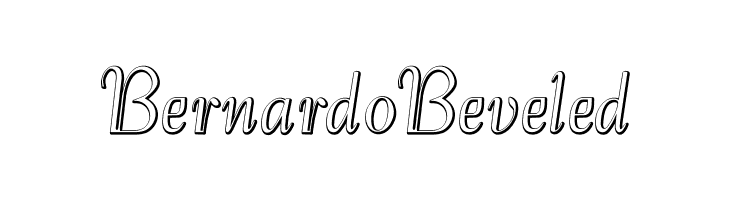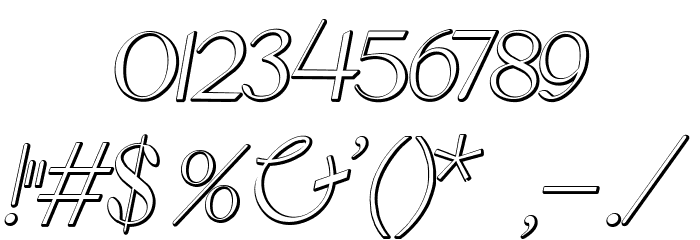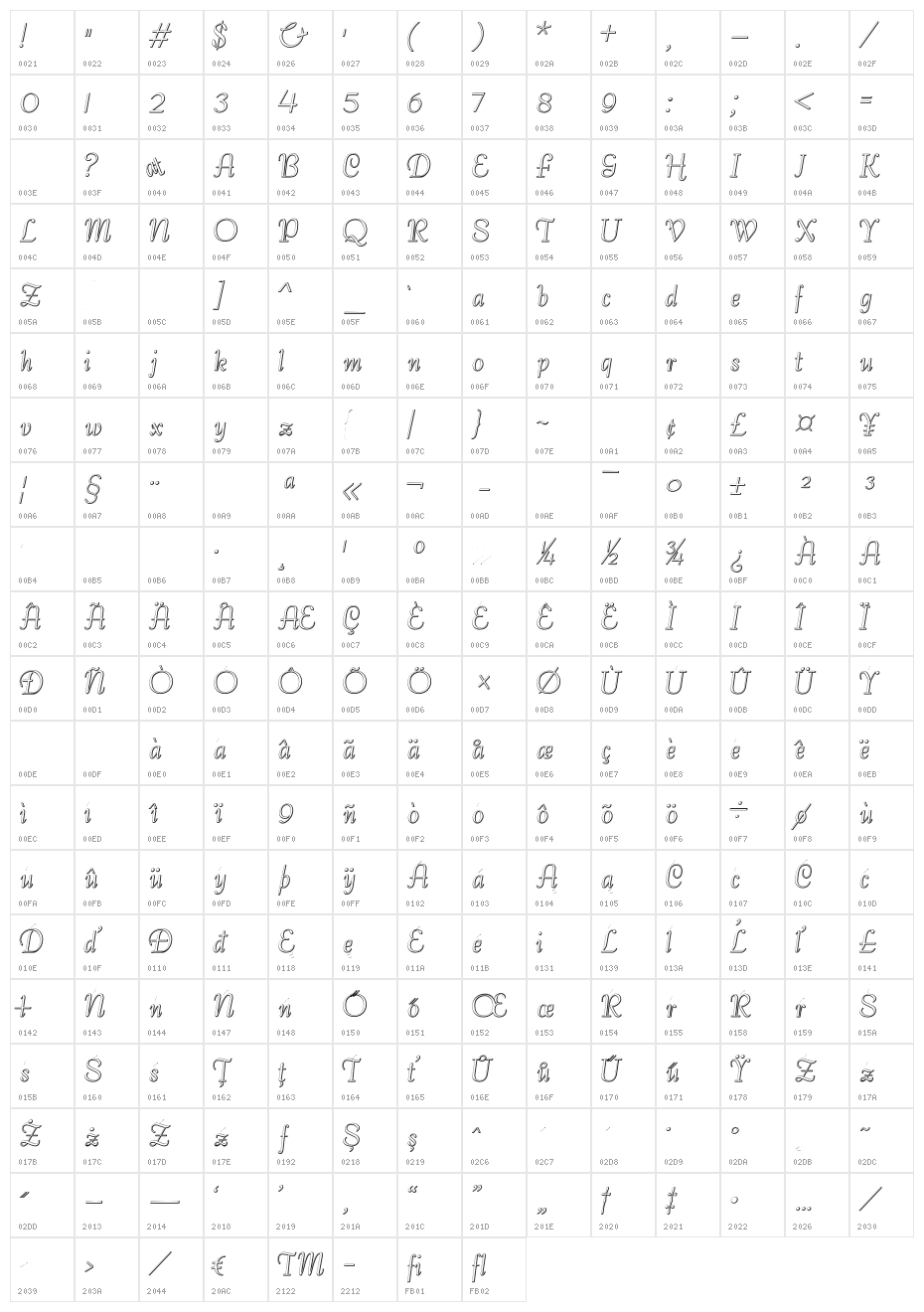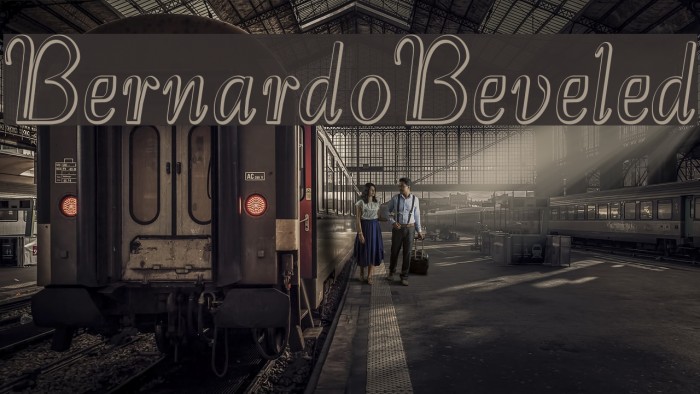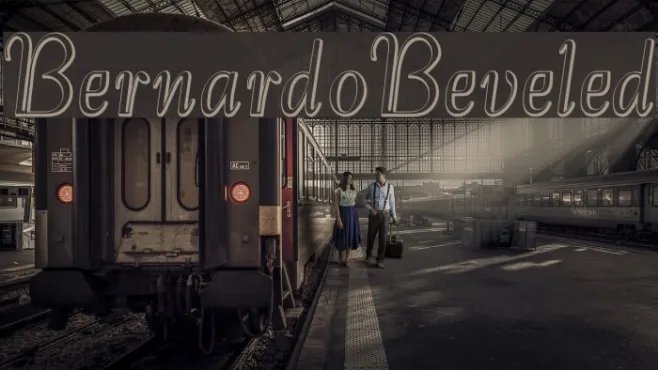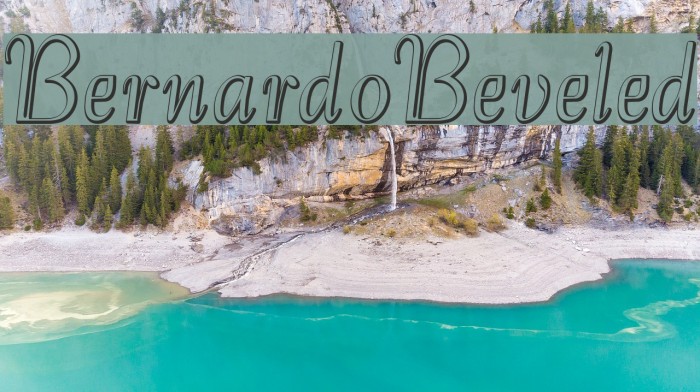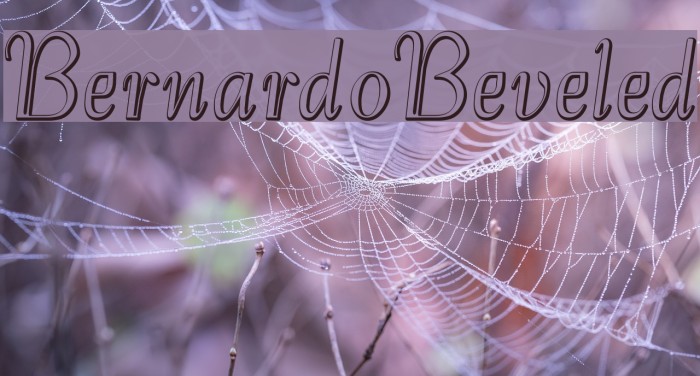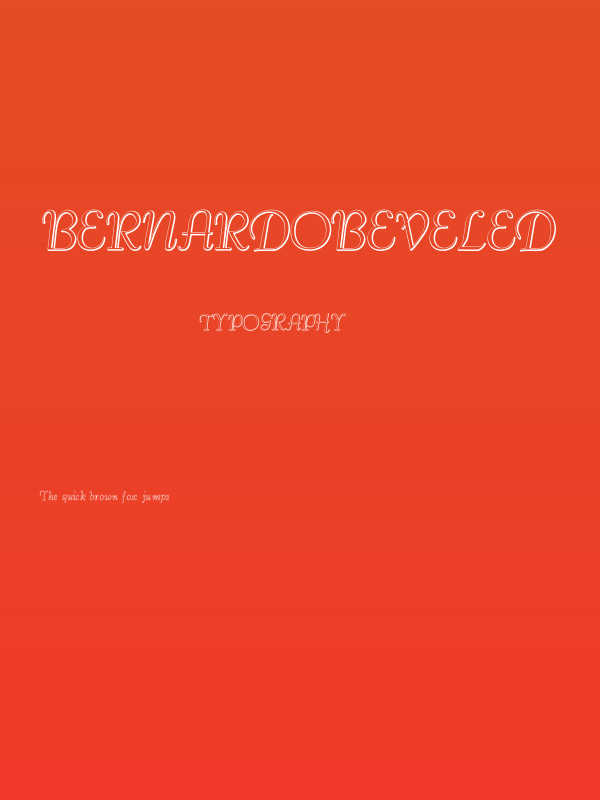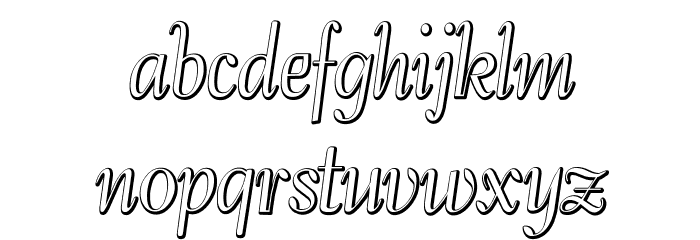
BernardoBeveled Font
BernardoBeveled Description
This font features a distinct beveled style, giving each character a three-dimensional appearance. The uppercase letters are elegantly crafted with a slight slant, adding a dynamic feel. The lowercase letters maintain a consistent style, complementing the uppercase with their smooth curves and sharp edges. Numbers and special characters are designed with the same beveled effect, ensuring uniformity across all glyphs. The overall design is both decorative and sophisticated, making it suitable for projects that require a touch of elegance and flair.
Use CaseLogos, Headlines, Invitations
Proposed ProjectsIdeal for branding, logos, invitations, and decorative headings where a touch of sophistication is desired.